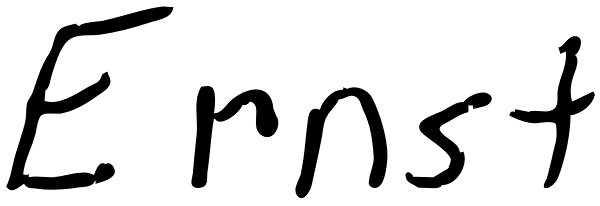
Ernst
Ernst is a high powered energetic font designed to provide an interesting and authentic feel to text that needs the handwritten ballpoint pen look without descending into bland letter shapes focused solely on legibility. Ernst has a wide array of...